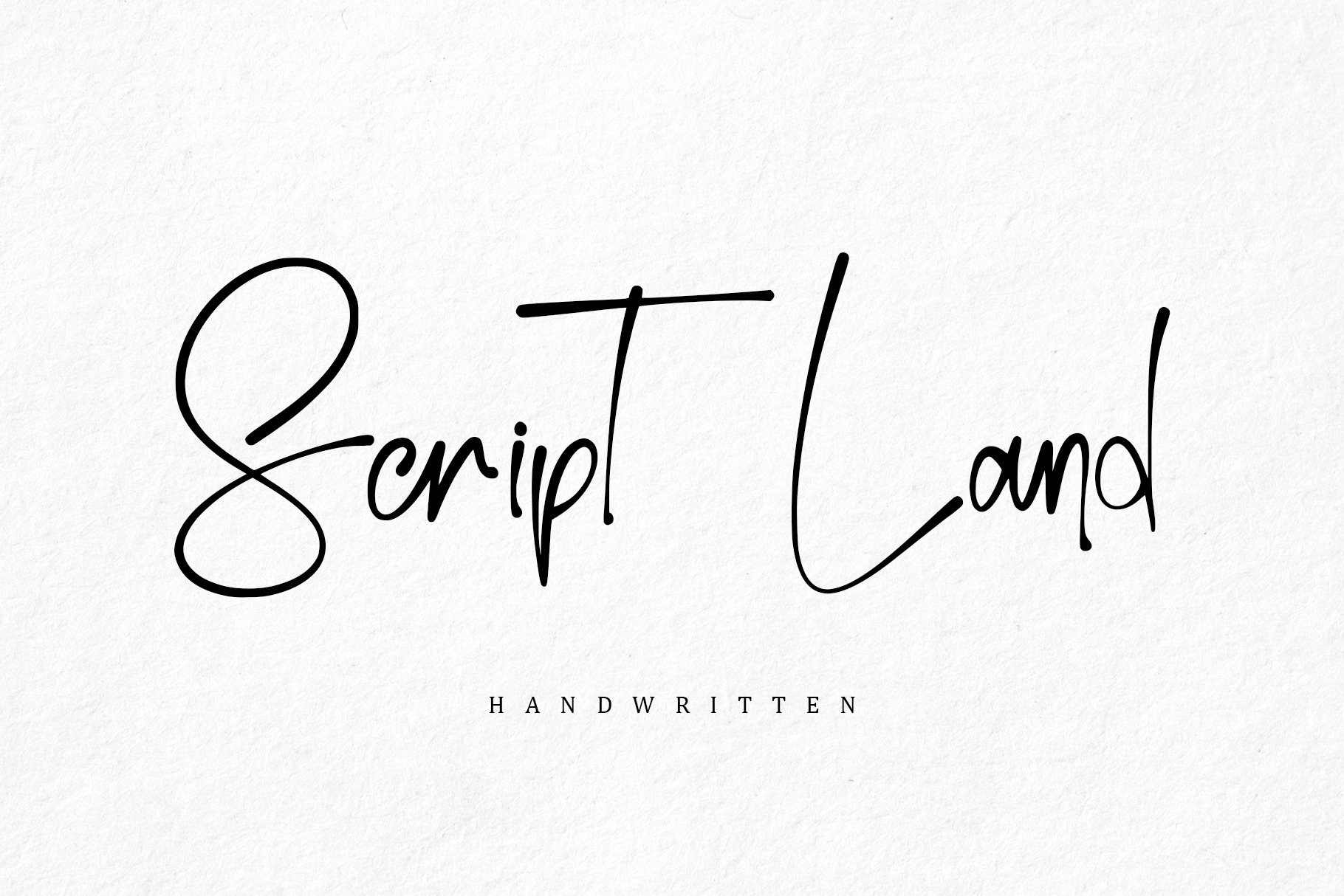
Script Land | Handwritten Font
Script Land is an enchanting handwritten font. This versatile script font has a wide spectrum of applications ranging from greeting cards to headlines and is guaranteed to add a romantic feel to your next project.